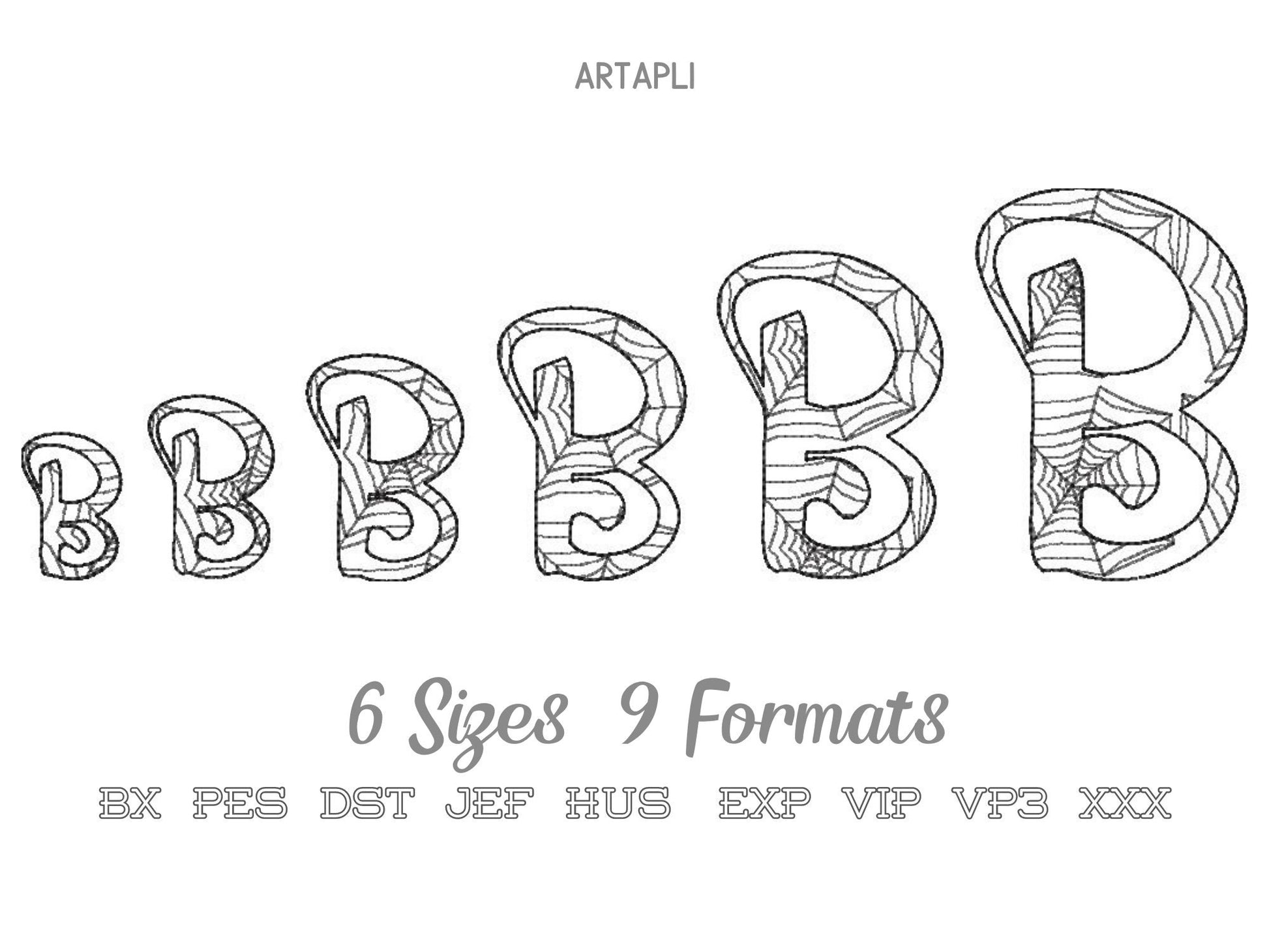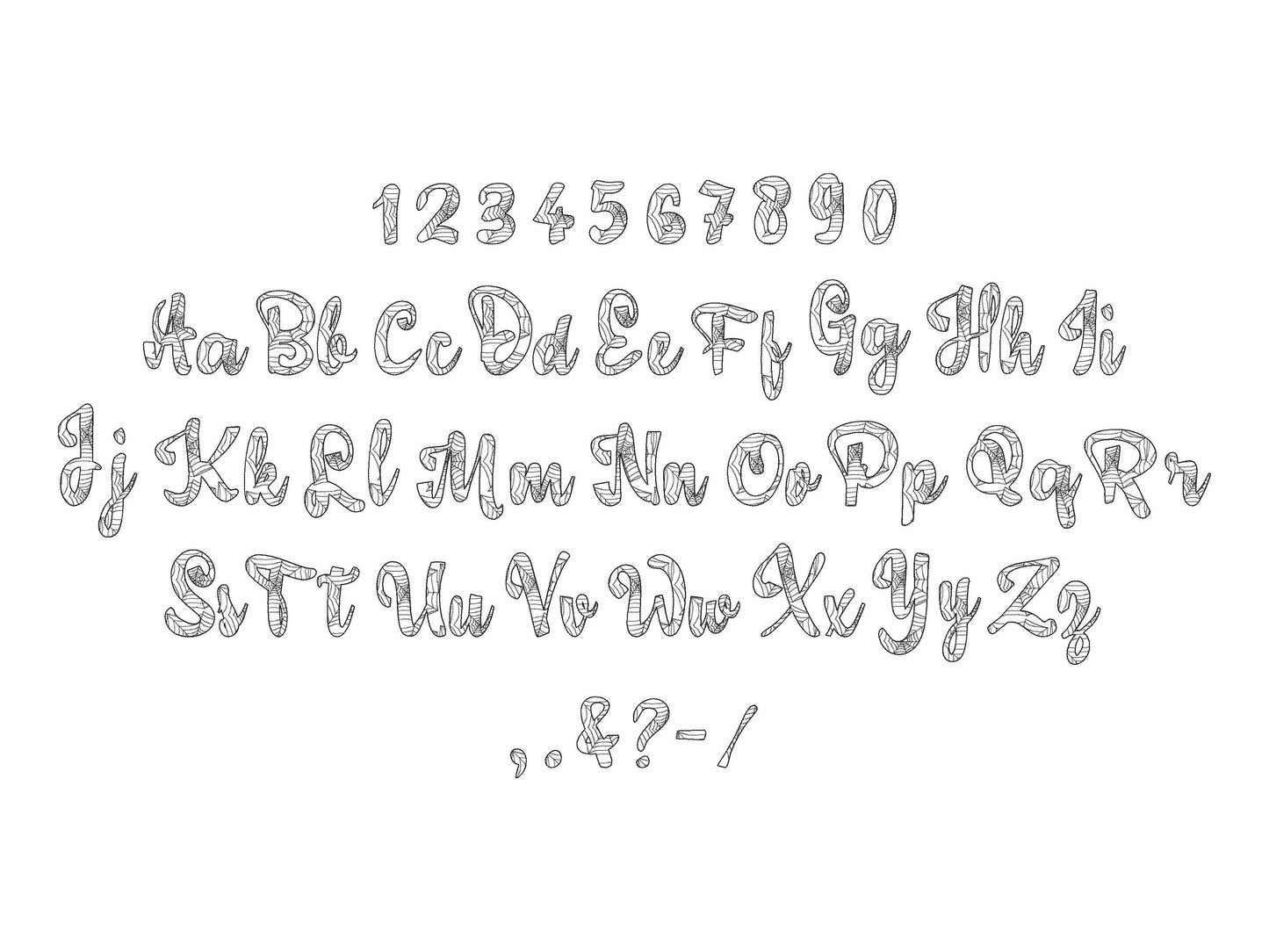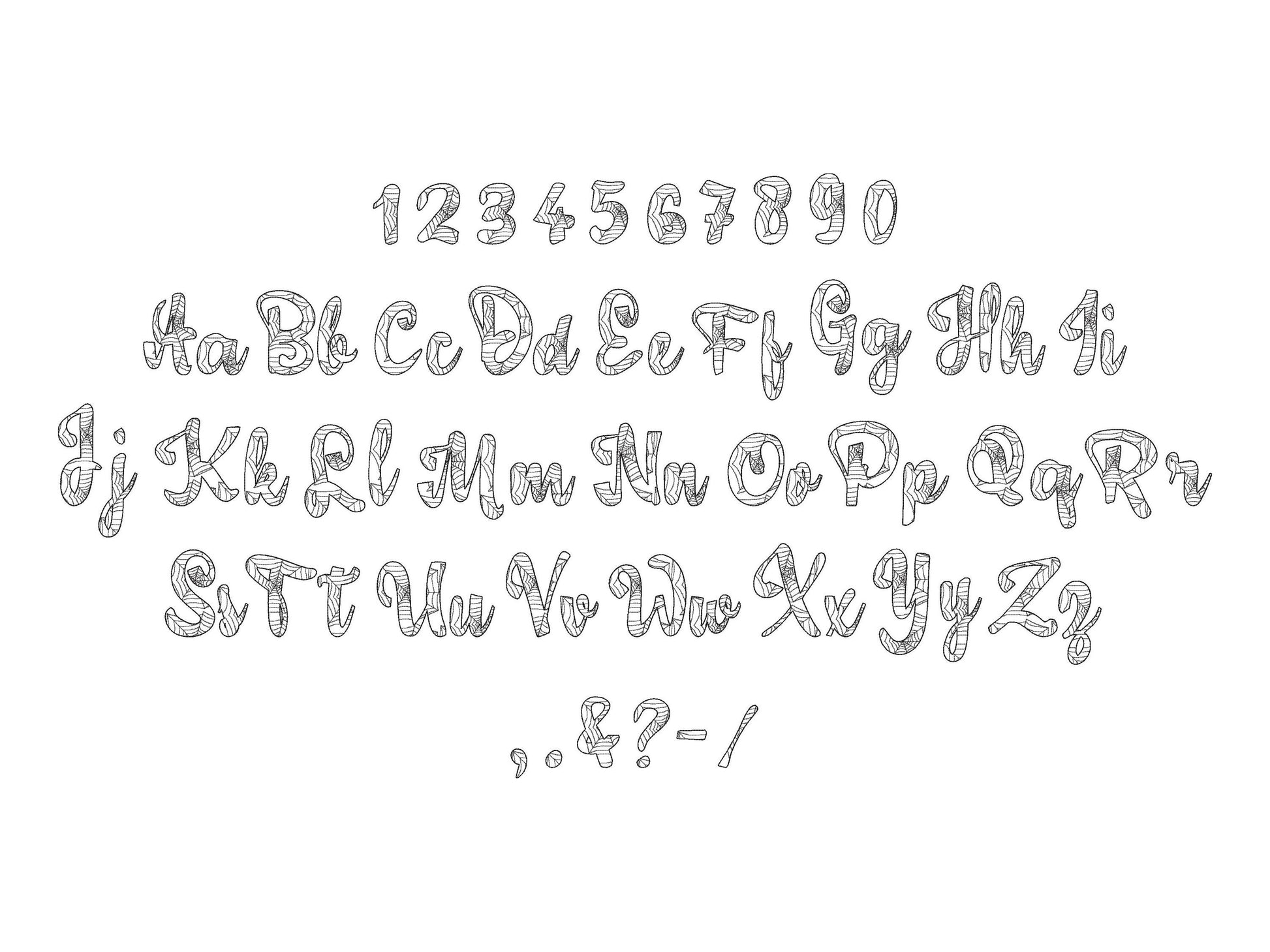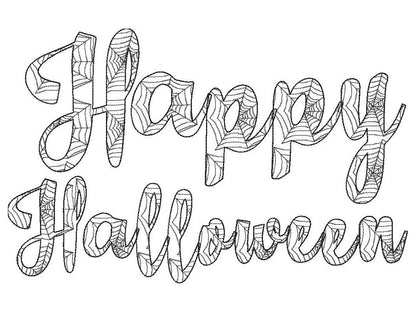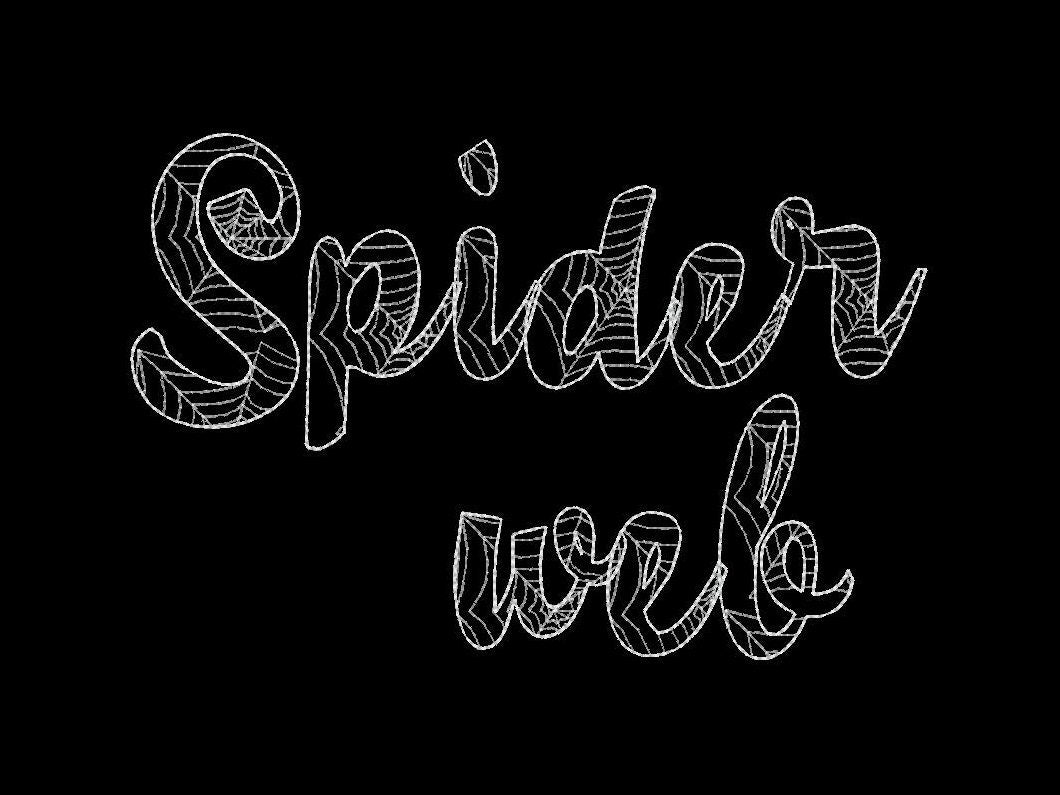
Or click to open the linkA spider web Halloween font with a light sketch outline that looks like lace, for spooky kids' names on shirts and treat bags.
A quick stitch: the fabric shows through the web. Uppercase and lowercase letters, numbers and punctuation in six sizes: 1.2, 1.5, 2, 2.3, 2.8 and 3.4 inches.